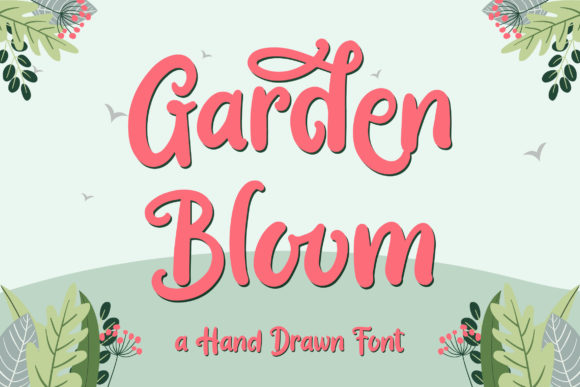
Step into the enchanting world of Garden Bloom Font, where handwritten beauty meets digital magic. Experience the allure of this script font that captivates the senses and elevates your designs to new heights.
With its delicate strokes and elegant curves, Garden Bloom Font dances across the page like a gentle breeze, leaving a trail of charm and sophistication in its wake. Whether you're crafting captivating logos, designing alluring posters, or creating heartfelt invitations, this font is your perfect companion.
Let Garden Bloom Font bring a touch of whimsy to your wedding invitations, adding a personal touch that reflects the love and joy of your special day. Imagine your guests' delight as they receive these exquisite invitations, each one adorned with the unique beauty of Garden Bloom Font.
Unleash your creativity with Garden Bloom Font and craft eye-catching social media posts that stand out from the crowd. Engage your audience with captivating visuals that showcase the font's versatility and charm. Watch as likes, shares, and comments pour in, propelling your brand to new heights of success.
Transport your readers to a realm of enchantment with Garden Bloom Font, the perfect choice for captivating book covers and mesmerizing e-book designs. Let the font's delicate strokes draw them into the story, creating an immersive experience that leaves them spellbound.
Garden Bloom Font is more than just a font; it's an expression of your unique style and personality. It's the key to unlocking your creativity and turning your design dreams into reality. Embrace the magic of Garden Bloom Font today and embark on a journey of artistic exploration that will leave you breathless.